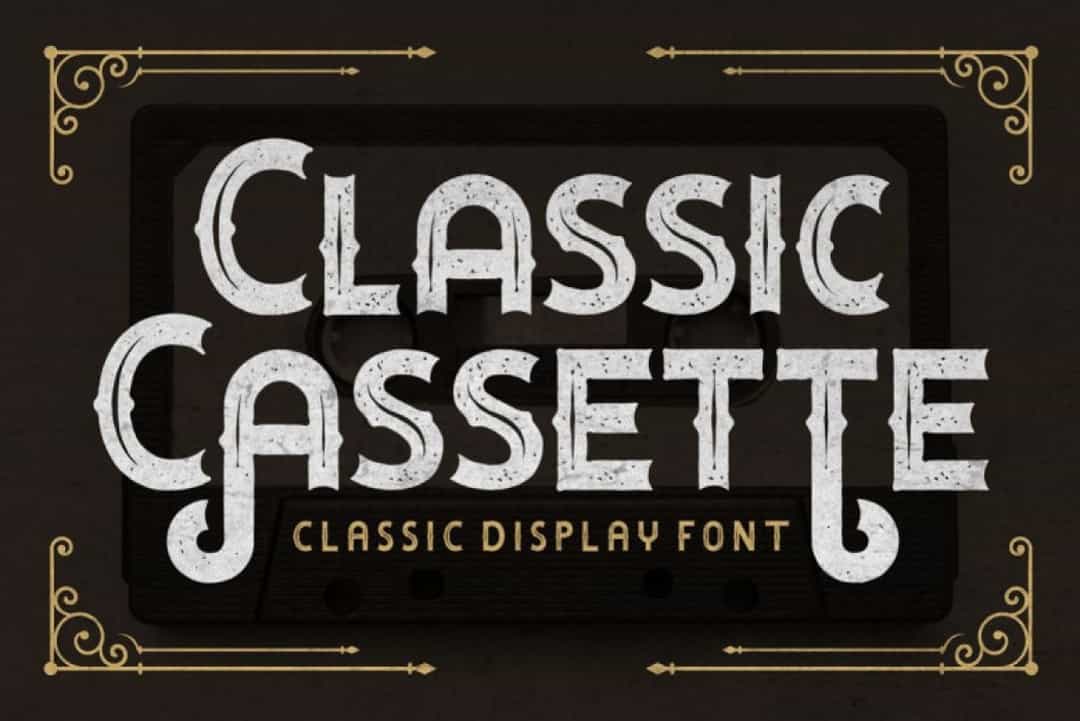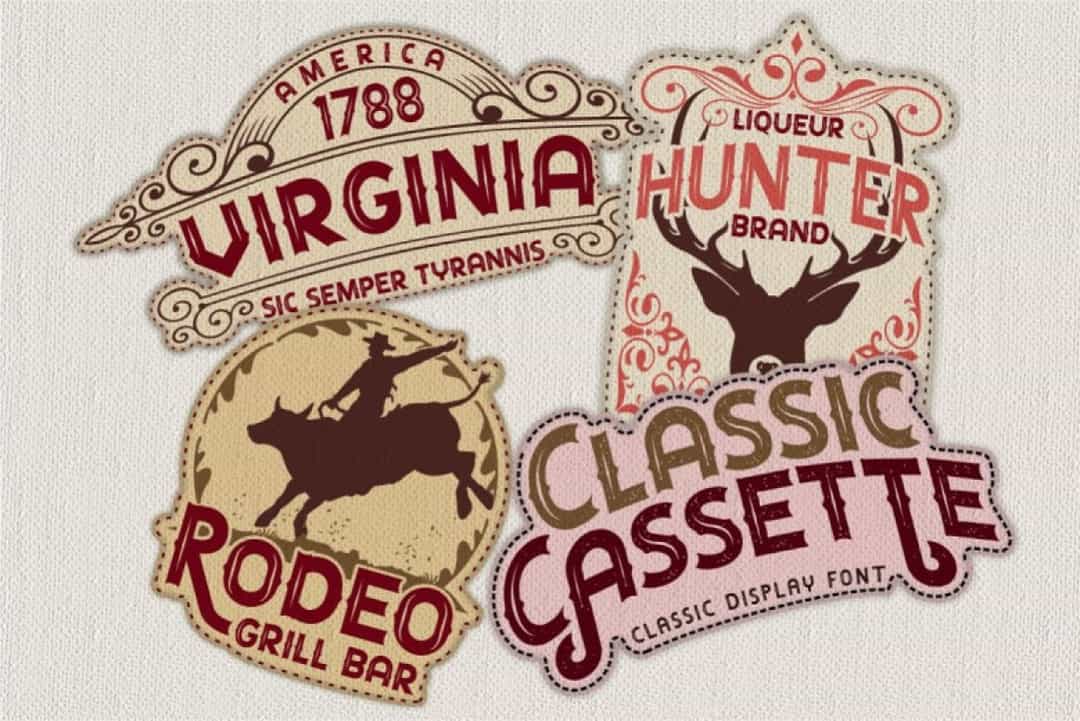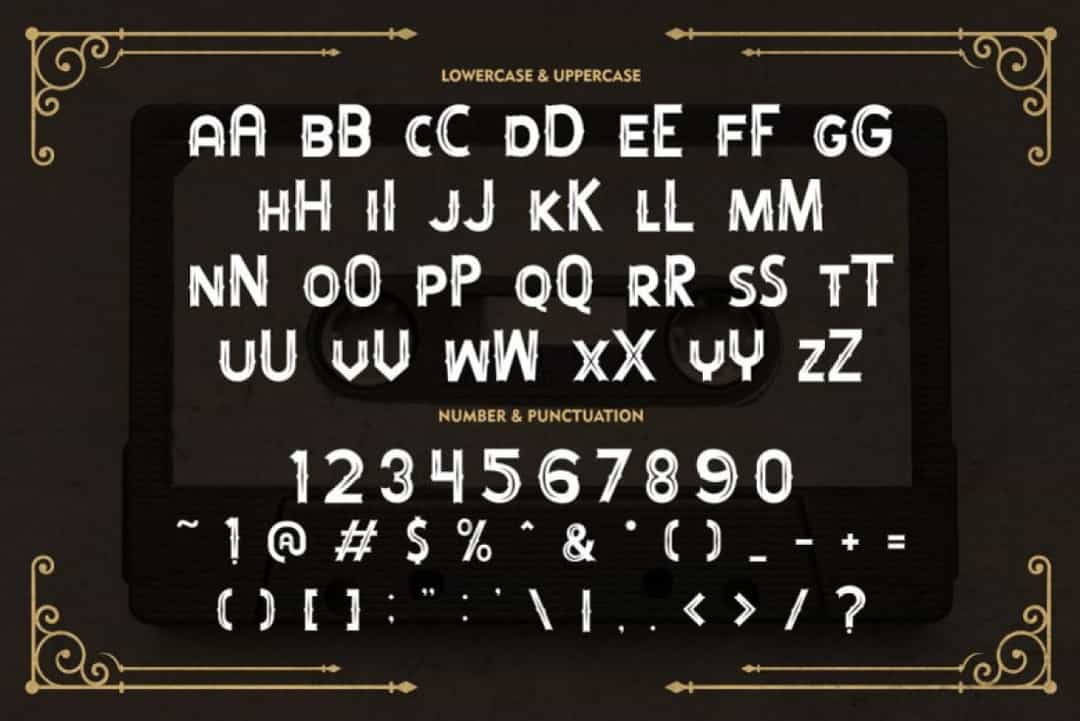
Classic Cassette Font
Classic Cassette Font is an exciting, fashionable and vibrant display font inspired by traditional styling with well-defined curves that makes its appearance captivating and striking. Additionally, Classic Cassette also provides you with alternative font options that can make your work look even more stunning!